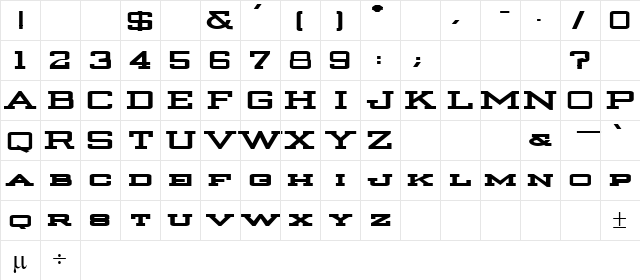
Strongman Bold
Design Context for Strongman Typeface
Strongman takes a measured approach to typography — its balanced proportions and neutral character make it a reliable workhorse for both digital and print work. Its bold stroke weight gives it real presence on the page.